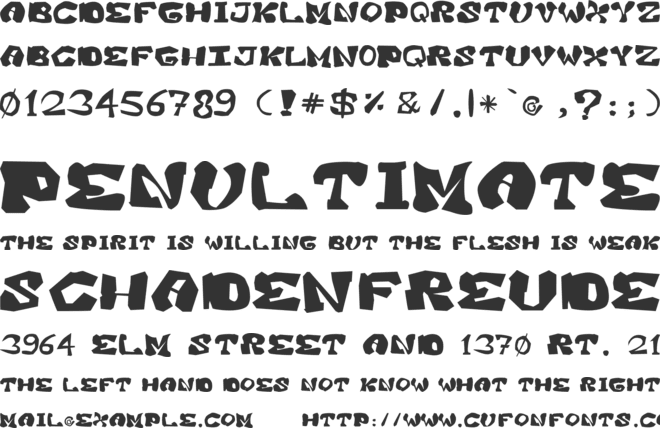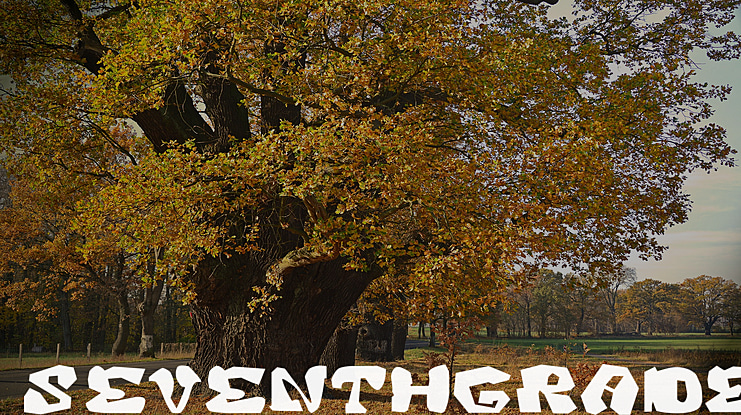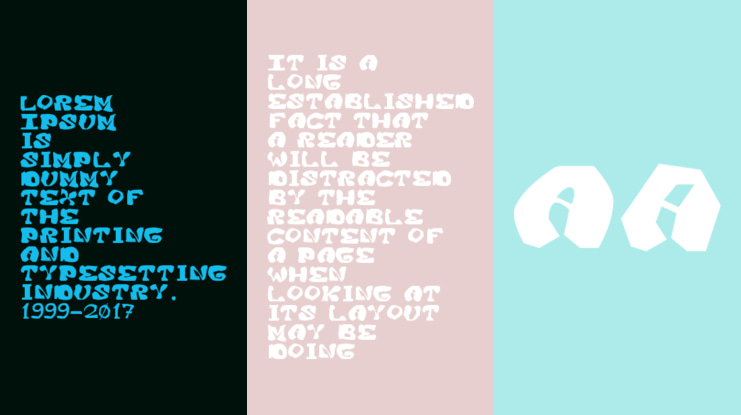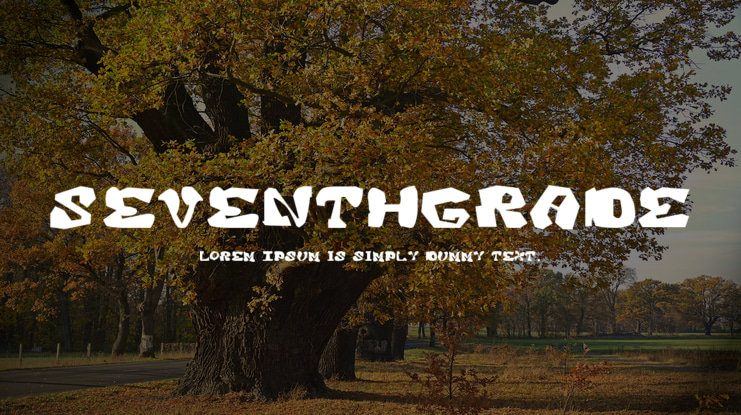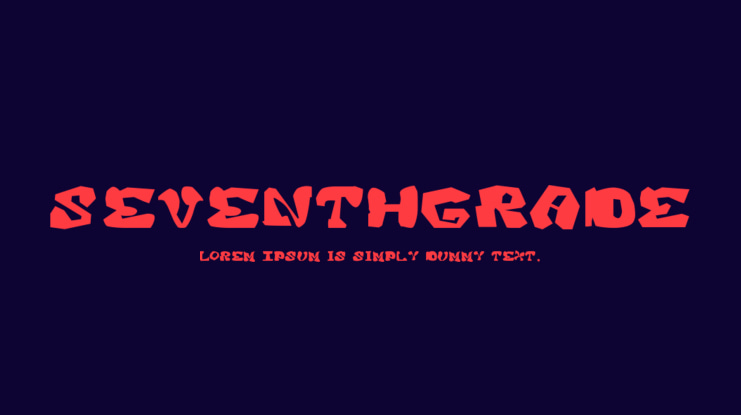
SeventhGRADE Font
Metal Music Era 80s, and here I am trying to get some letters work. Zip contains fontforge work file for desired tweak work. And here is a link for my latest grafitti style letter work, https://www.turbosquid.com/3d-models/3d-alphabet-letter-1186301